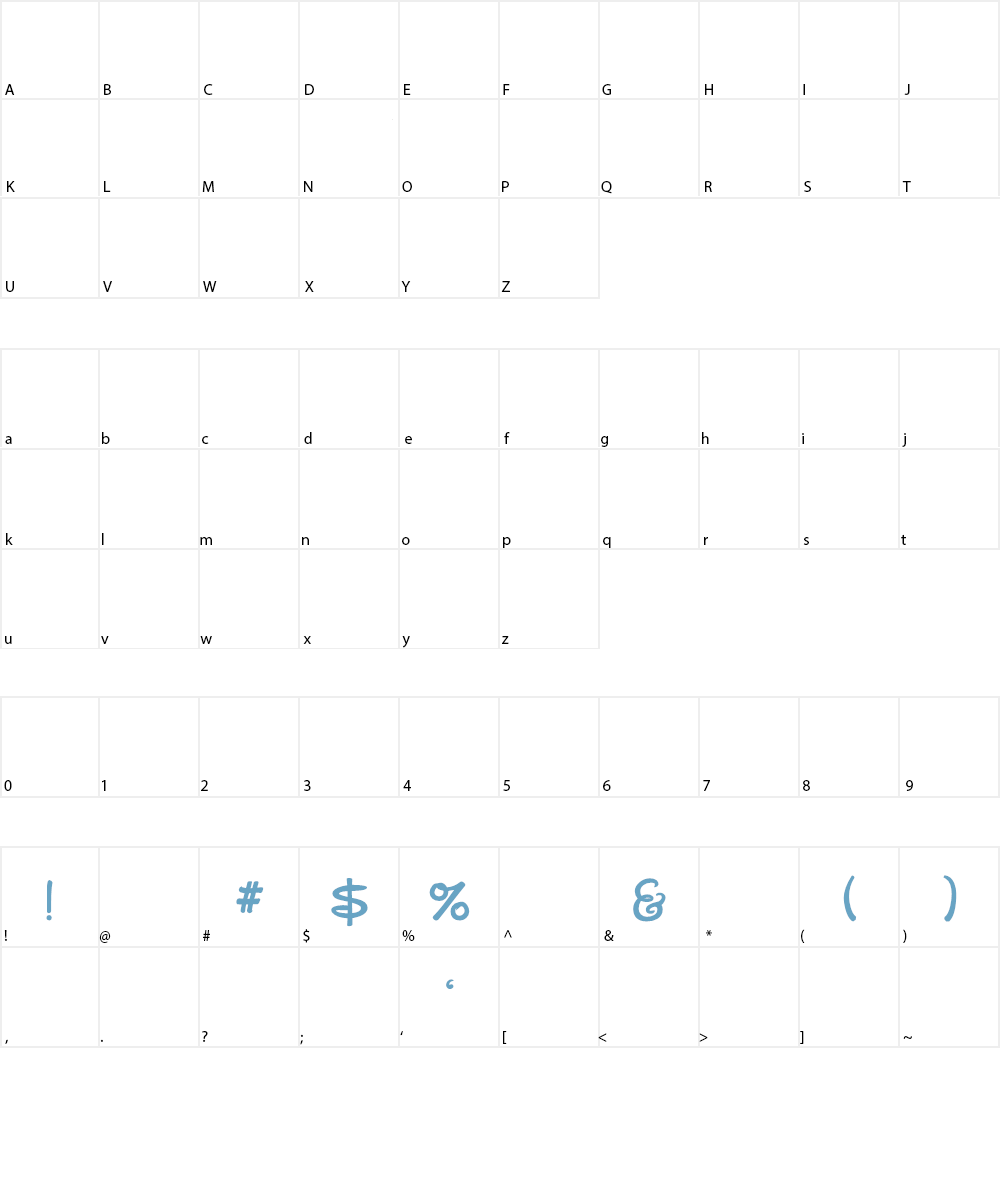
NEW! The new Waltograph UI font!
For those of you who are fans of Disney, I decided (a year ago) that I'd create a new version of the Waltograph font. Its name is "New Walt Disney Font". It's based off of the new version of the animated Walt Disney Pictures logo. I'd call this font the Walt Disney Pictures logo font.
I recommend you try out this font better than the old one. (Waltograph)
It's way better than Waltograph, because in 2006, somebody of The Disney Company redrew the WaltDisney script.